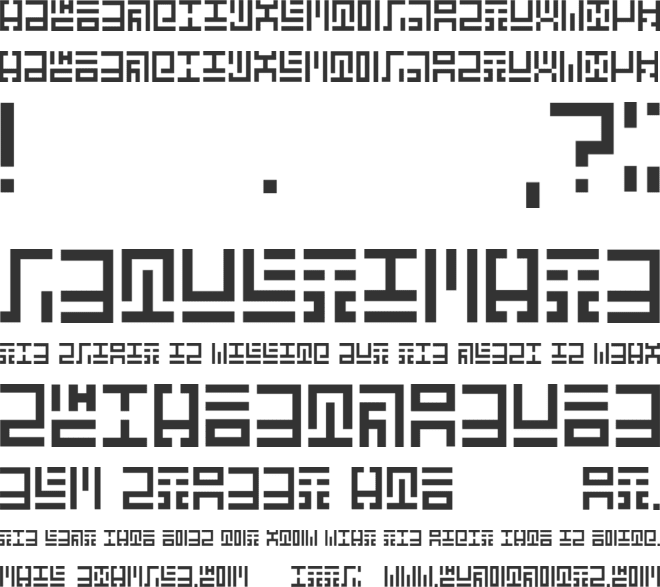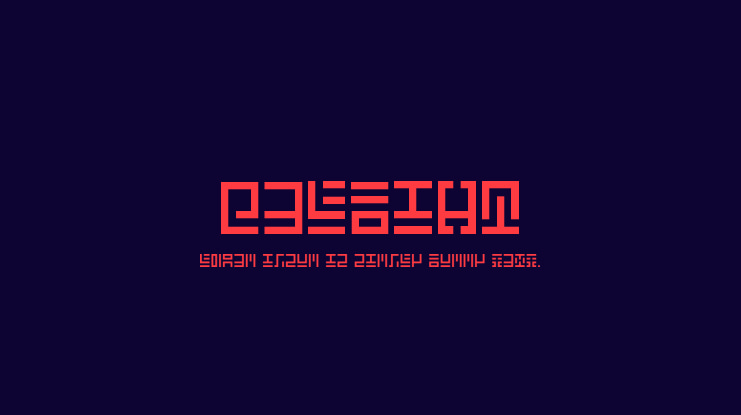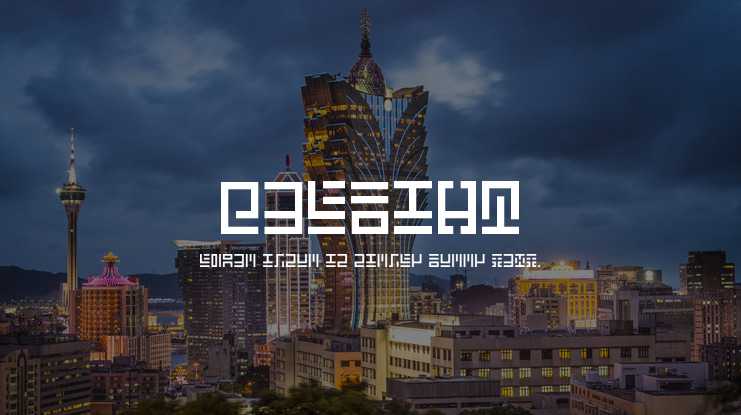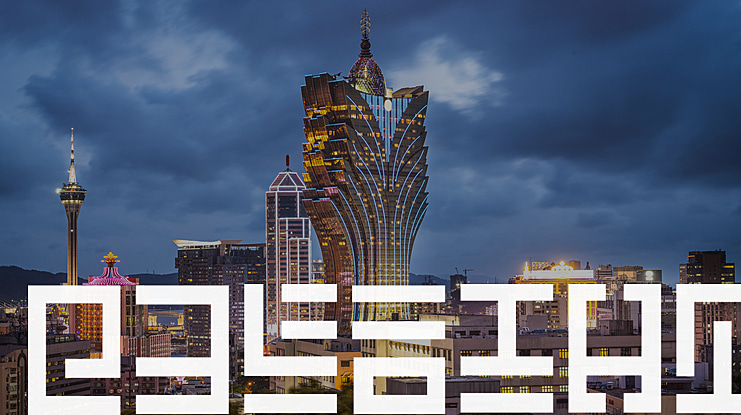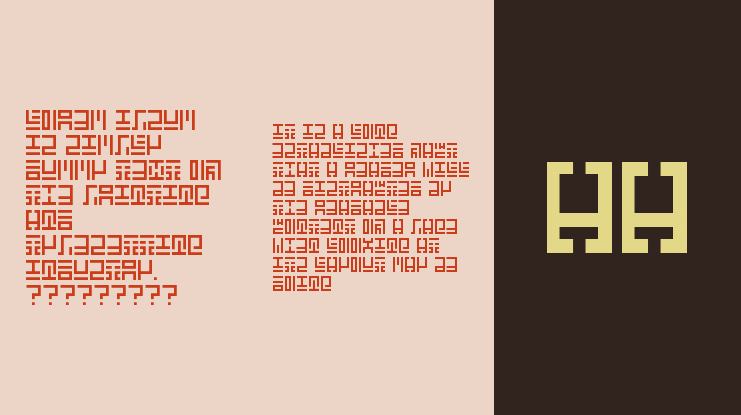
Geldian Font
How to read = Some letters you can see inside the letter itslef , some letters resemble english and some are resemble nothing , easy and fast to learn yet weird looking at first glance